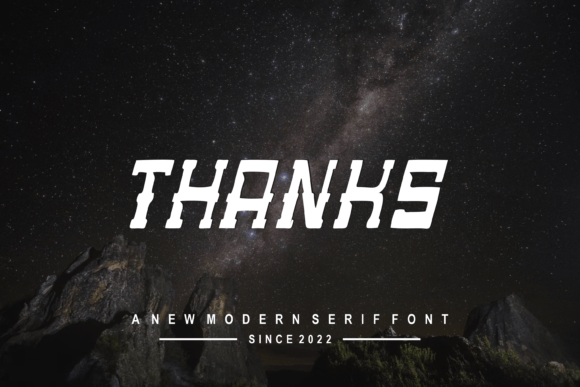
Introduction to Mavrixstmoot Font
Remember that moment when you’re working on a creative project and the perfect font is all that’s missing? You scroll through font libraries, searching for that one special something that will elevate your design from ordinary to extraordinary. That’s exactly what we’re excited to share with you – a game-changing display font that’s sure to make your designs pop: the Mavrixstmoot Font.
Whether you’re a seasoned designer or just starting out, the Mavrixstmoot Font is a valuable addition to any design resource arsenal. Its modern, cool aesthetic is perfect for letterheads, titles, and stationery, making it an ideal choice for a wide range of creative projects. With its high-quality design and transparent background, this font is sure to add a touch of sophistication to any design.
Key Features of Mavrixstmoot Font
- High-quality design: Mavrixstmoot Font is a premium design resource ideal for creative projects, offering a unique and sophisticated aesthetic.
- Transparent background: The Mavrixstmoot Font features a transparent background, allowing for seamless integration with various design elements.
- High-resolution design: With a resolution of 300 DPI, the Mavrixstmoot Font is suitable for high-quality printing and digital applications.
- Unique characteristics: The font’s distinctive style and typography make it an excellent choice for designers seeking a creative and eye-catching design element.
- Perfect for creative projects: Mavrixstmoot Font is an ideal design resource for various creative projects, including graphic design, web design, and more.
Honest Review: Mavrixstmoot Font
As a designer, I’m always on the lookout for high-quality design resources to elevate my creative projects. Recently, I stumbled upon the Mavrixstmoot Font, and I’m excited to share my thoughts on this free download.
What works well is the font’s versatility. It comes with a range of styles and weights, making it perfect for a variety of design applications, from logos to typography-heavy projects. The Mavrixstmoot Font also features a transparent background, which is a big plus for designers who want to achieve a seamless look.
- ✨ Versatile styles and weights
Overall, I’m impressed with the Mavrixstmoot Font’s potential. While it’s not perfect, it’s a solid addition to any designer’s toolkit. With a bit of tweaking and experimentation, I’m confident that this font will become a go-to resource for my creative projects.
Tips for Getting the Most Out of Mavrixstmoot Font
For best results, use the Mavrixstmoot Font in combination with a high-quality image or graphic. This will help to create a visually appealing design. Additionally, experiment with different font sizes, styles, and colors to find the perfect combination for your creative project.
The Mavrixstmoot Font is ideal for a variety of creative projects, including social media graphics, presentations, and business cards. It’s also a great resource for designers who need a versatile and high-quality font for their design work.
Yes, the Mavrixstmoot Font features a transparent background, allowing for easy integration with various design elements and backgrounds. This makes it an ideal choice for creatives working on projects that require a high level of design flexibility.